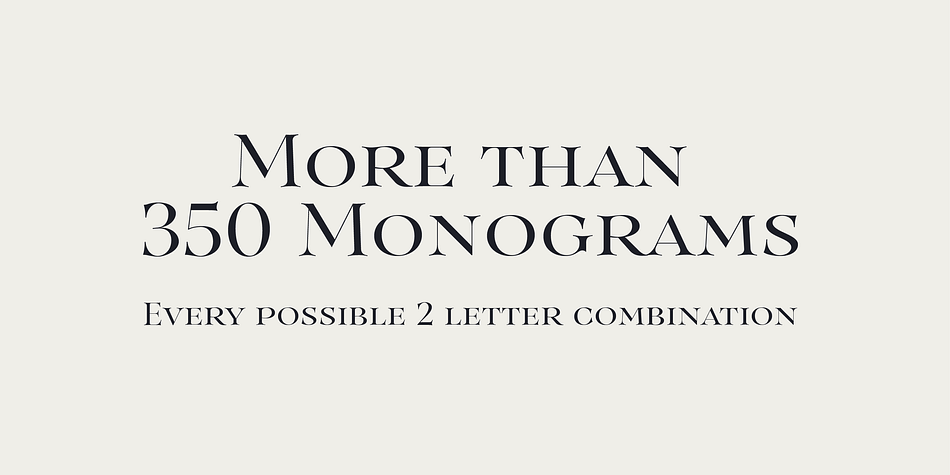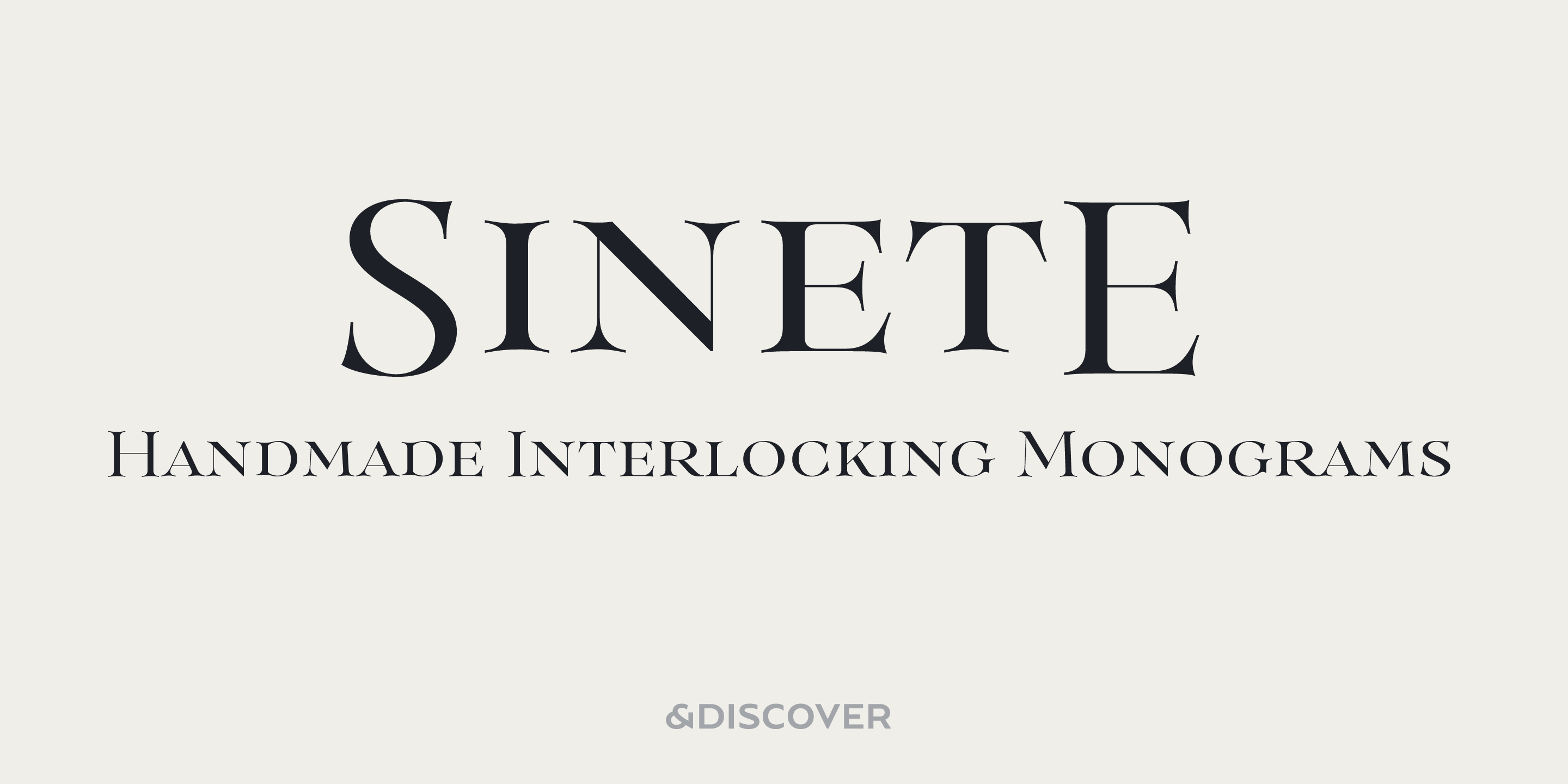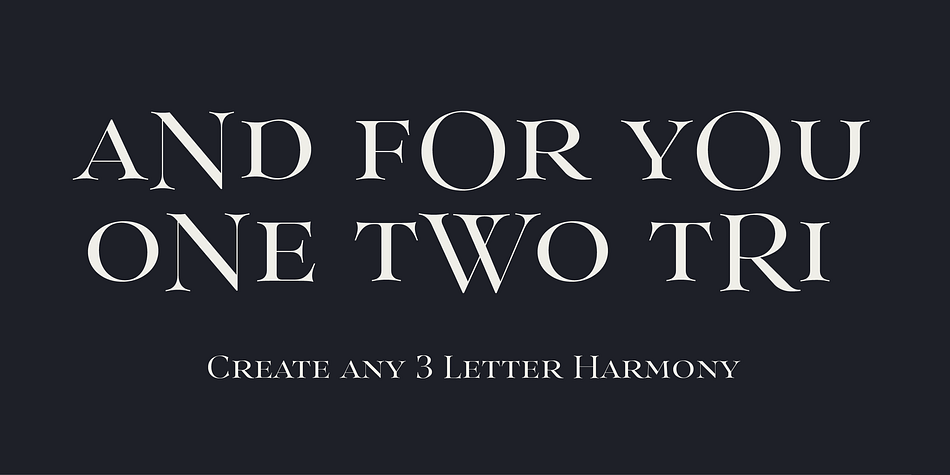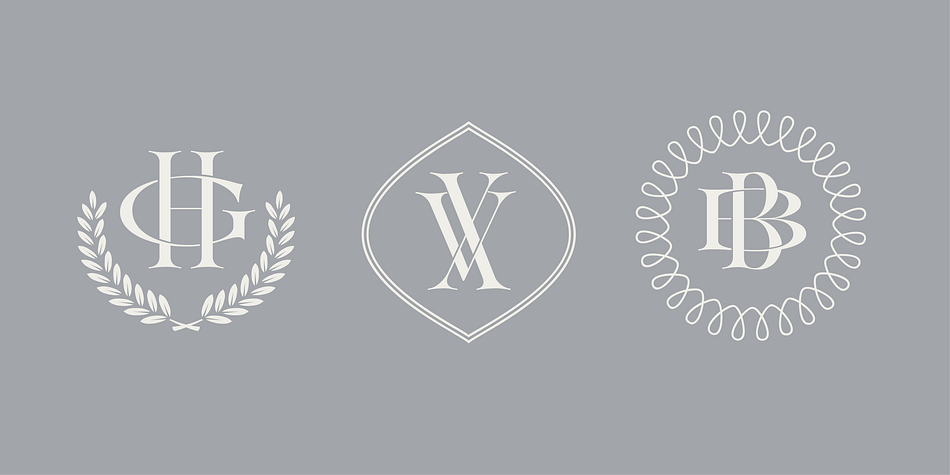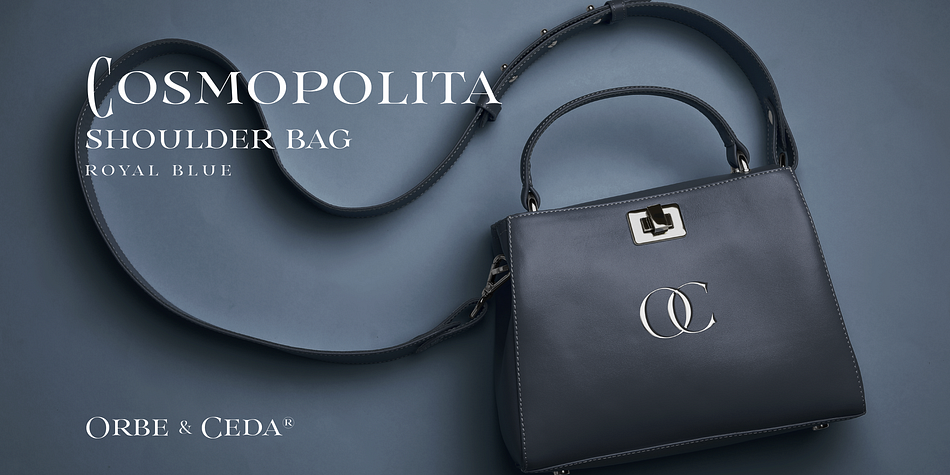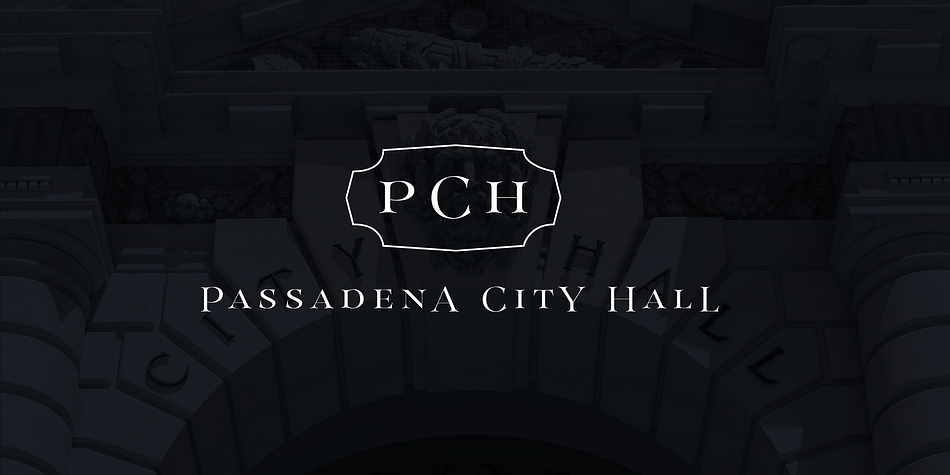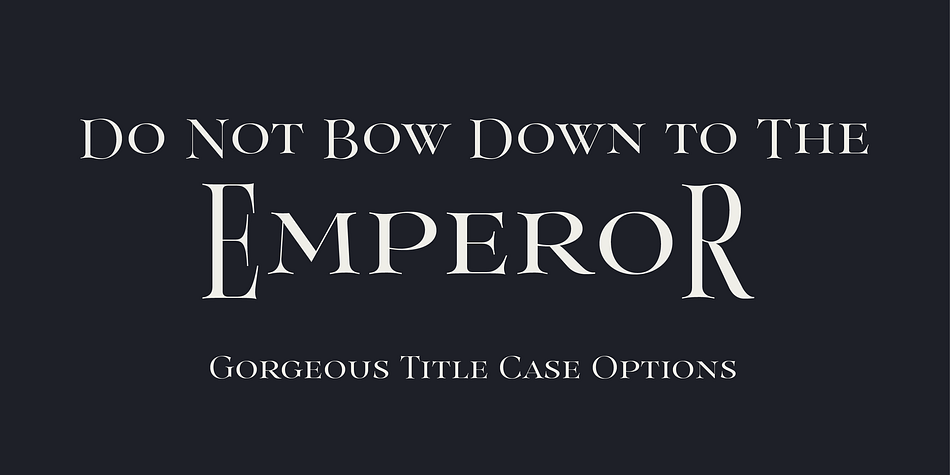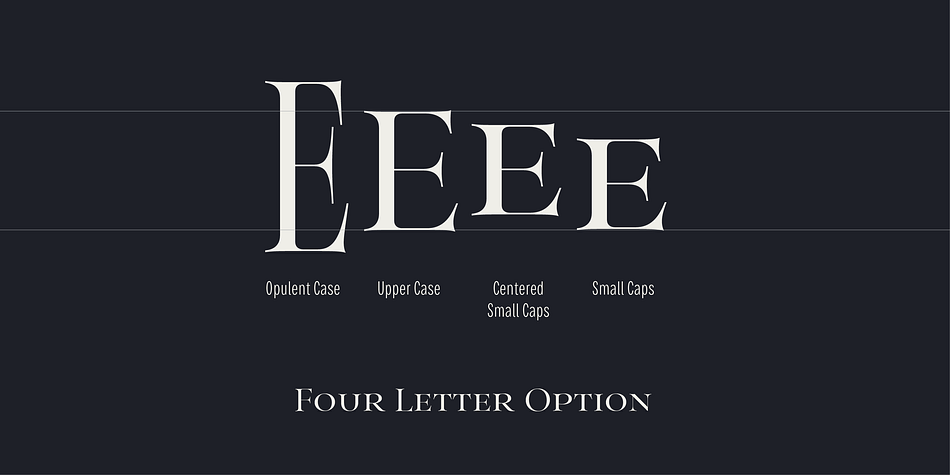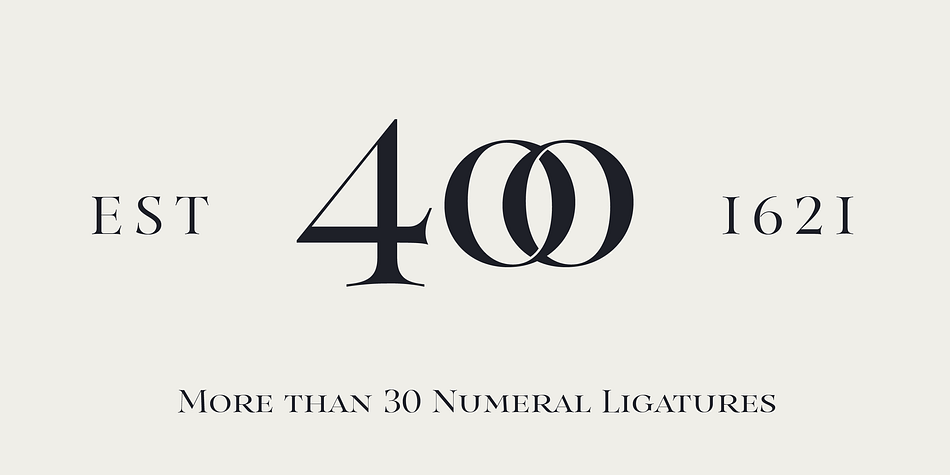
Sinete
Designed by Natanael Gama, Sinete is a display serif and monograms font published by Ndiscover.
Sinete, besides being and elegant and charming typeface, is also an extraordinary monogram set. You can create any 2 letter combination with its more than 350 handmade interlocking monograms. There is also the possibility of creating stylish 3 letter combinations.
But that is not all, Sinete provides you with 30+ numeral ligatures and a variety of frames to combine with the monograms.
This font also gives you the ability to create many text textures with its 4 case design approach (Uppercase, Small Caps, cantered Small Caps and “Opulent” Case). This gives you plenty of versatility. Make sure you play with the 9 Stylistic Sets provided.
Sinete is all about creating wonderful words. Perfect for wedding invitations and other events as well as for refined logos and branding. This is also a great typeface for titles due to its delicate design and captivating look.